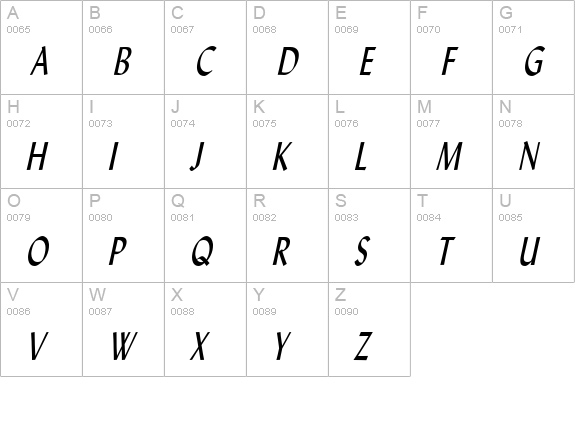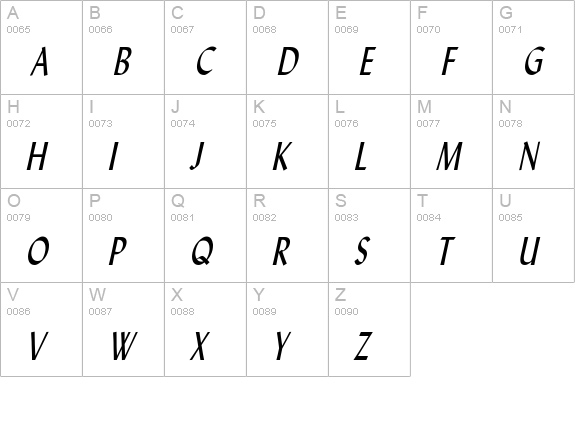
Lynda Thin Italic is a delicate, low-contrast, italic variant in the Lynda typeface family \xE2\x80\x94 well suited to fashion editorial, minimal branding, and high-contrast display.
Lynda Thin Italic font exudes elegance and sophistication with its sleek and delicate design. The thin strokes and subtle slant of the italicized characters lend a sense of grace and refinement to any text. Perfect for adding a touch of sophistication to invitations, logos, branding materials, and more, Lynda Thin Italic font is a versatile and stylish choice for any project. And the best part? Lynda Thin Italic font is available for free download at FontsMarket.com! Simply head over to FontsMarket.com to access this beautiful typeface and elevate your designs with its timeless appeal. Don't miss out on the opportunity to enhance your projects with the charm and sophistication of Lynda Thin Italic font, available to you at no cost.